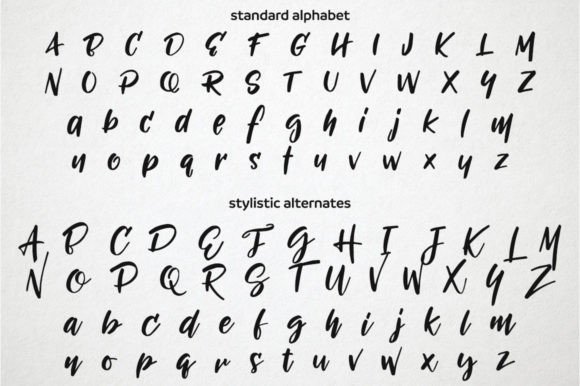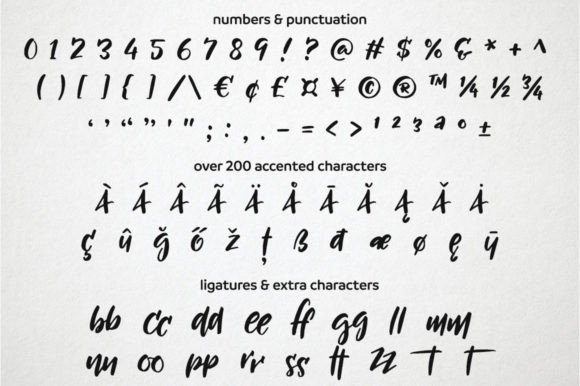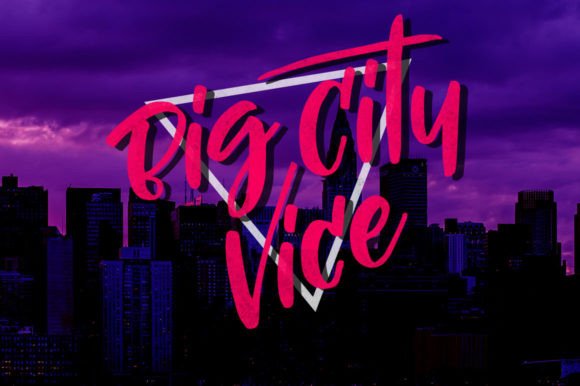
Introduction to Morning Sunset Font
I name my fonts based on how they β€œfeel” to me.
πŸ“Œ Product Name Morning Sunset Font
πŸ‘€ Author GeekMissy
This one gave me a very beachy, oceanside feeling, and kind of both a sunrise and sunset vibe Thus the weird, scientifically impossible, yet descriptive name: β€œMorning Sunset”.
Key Features of Morning Sunset Font
Why Choose Morning Sunset Font?